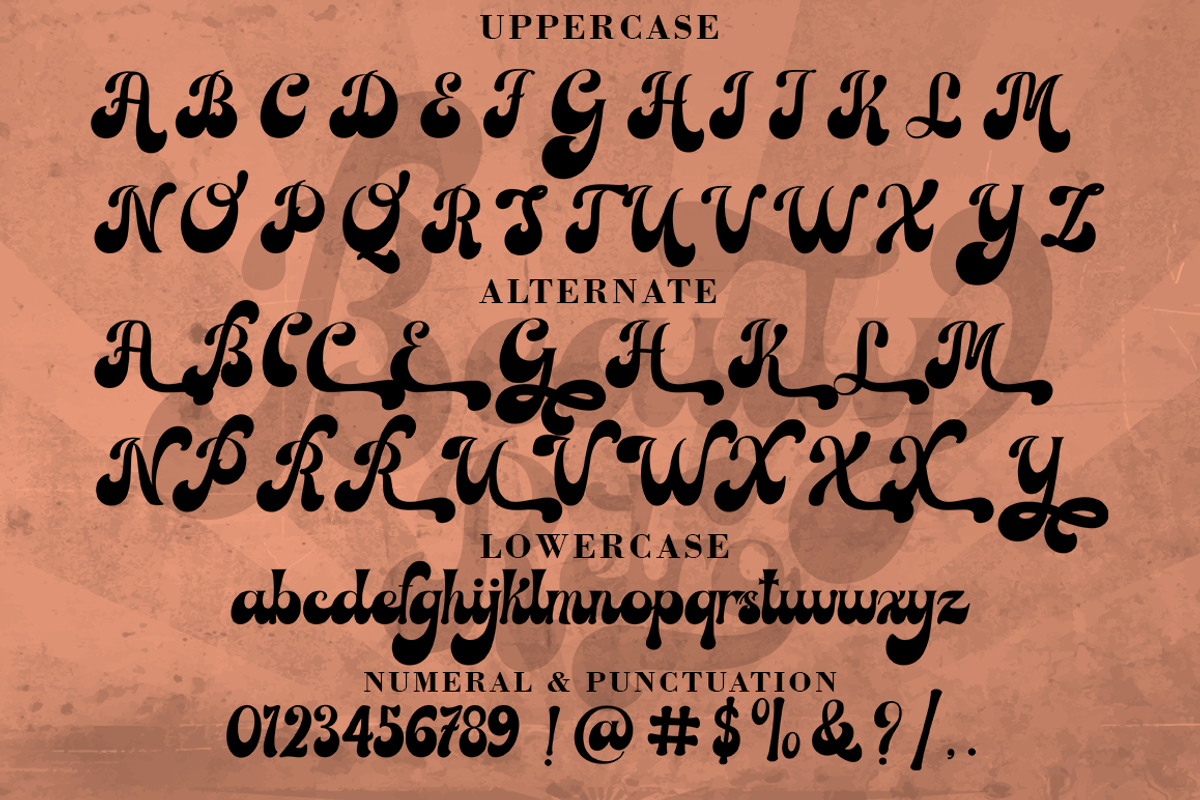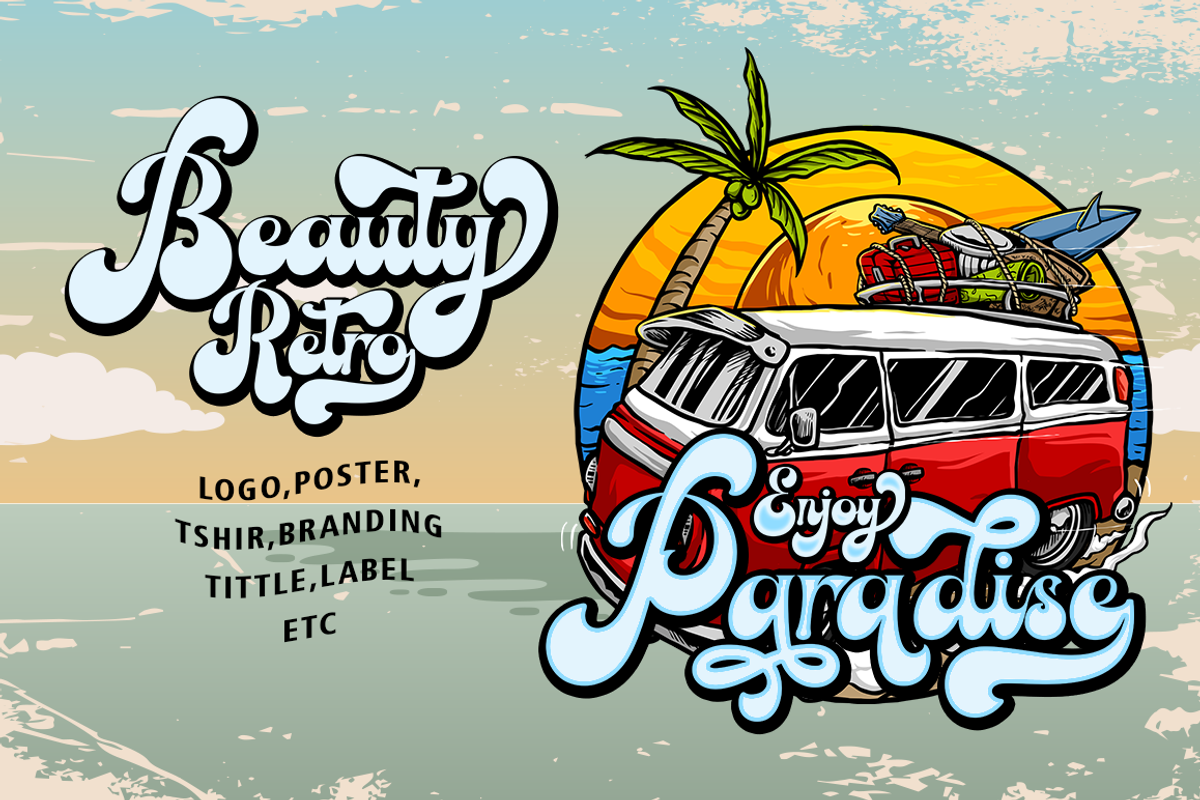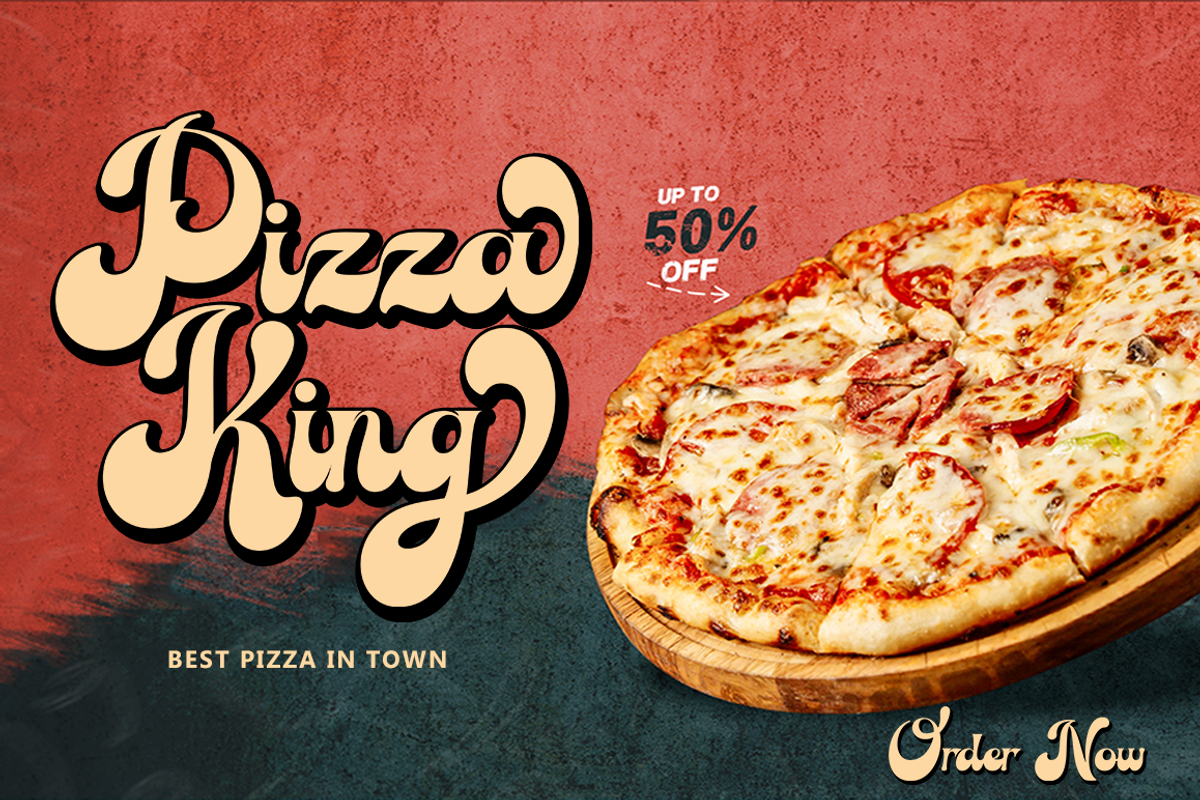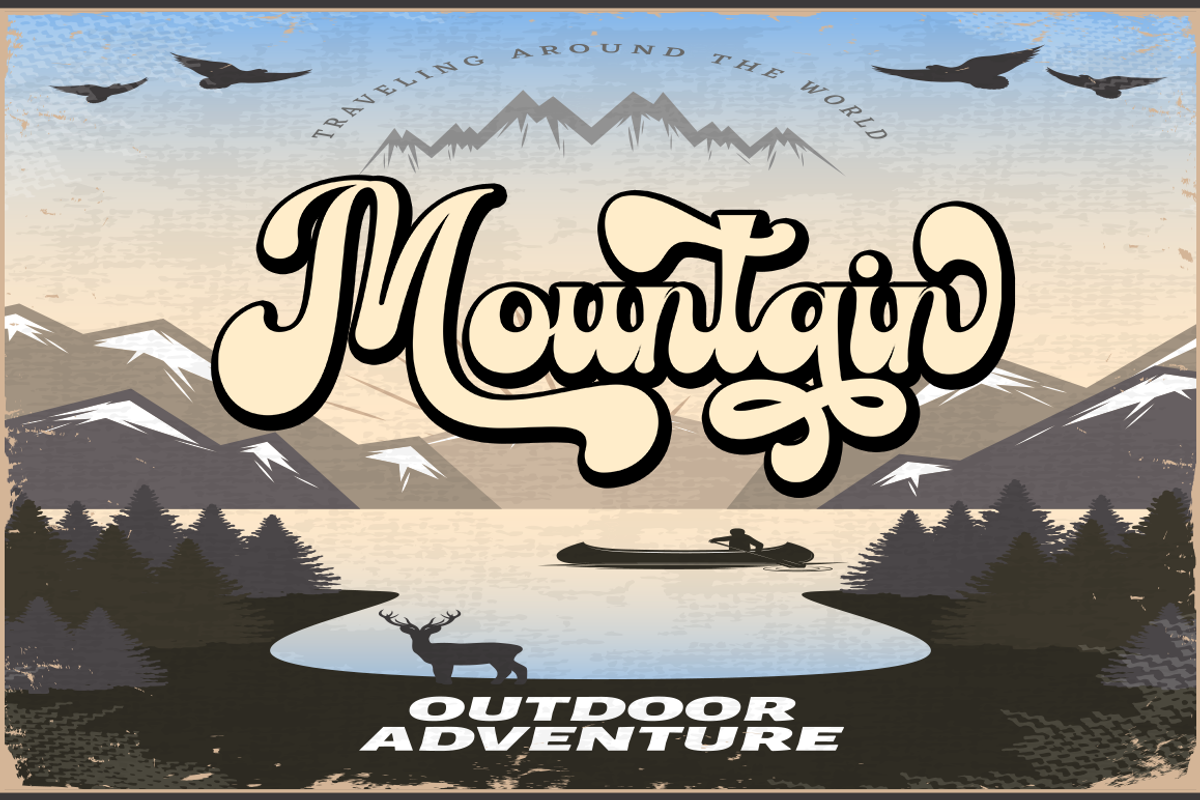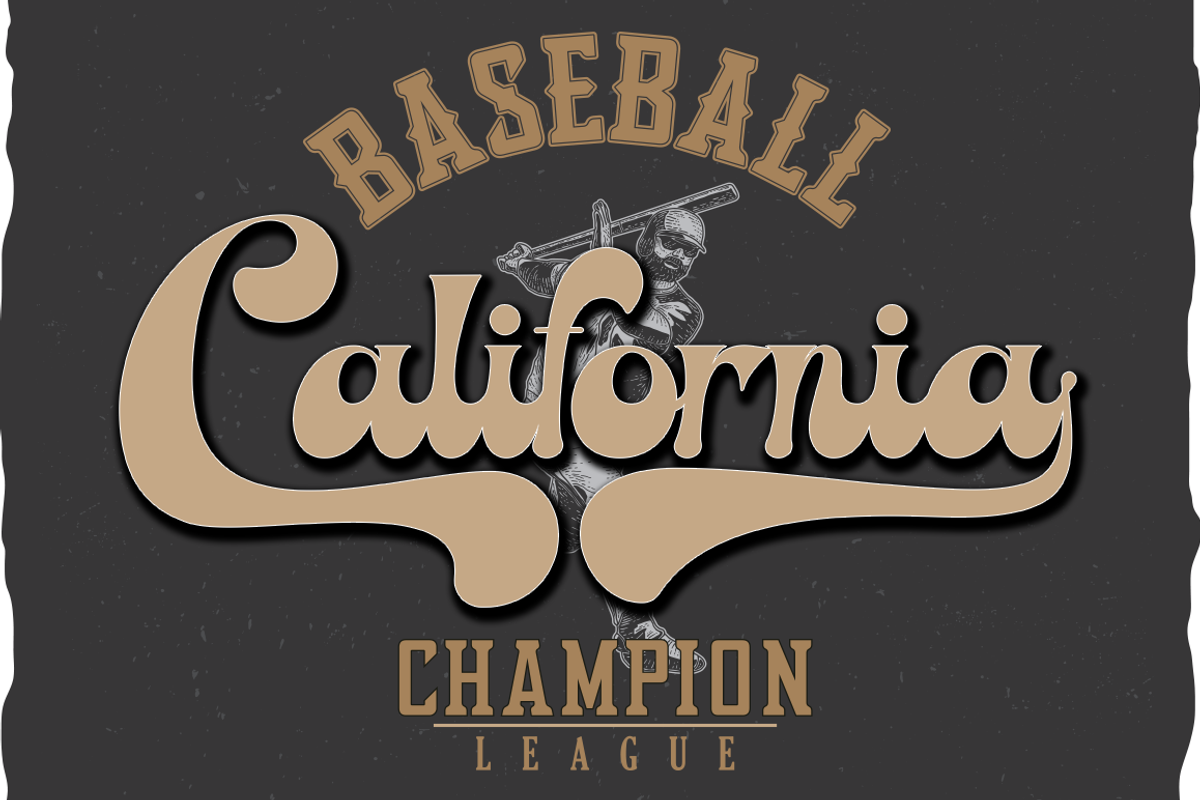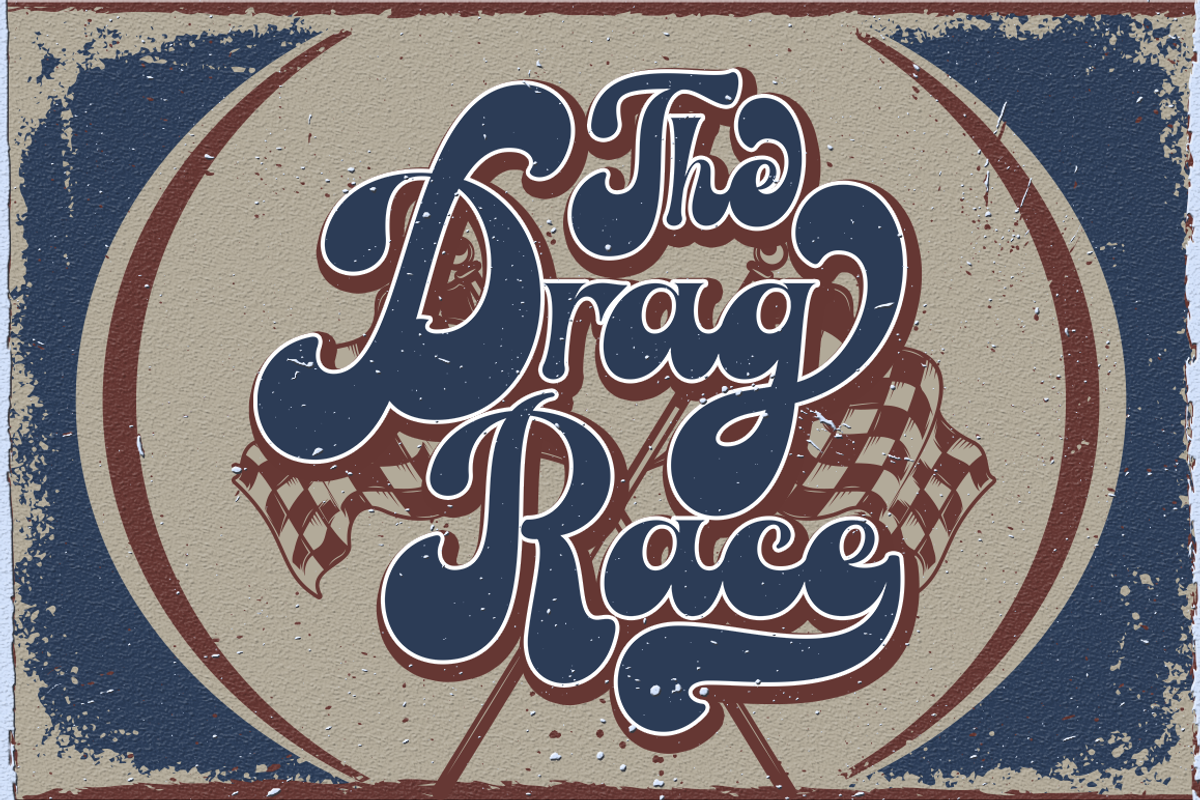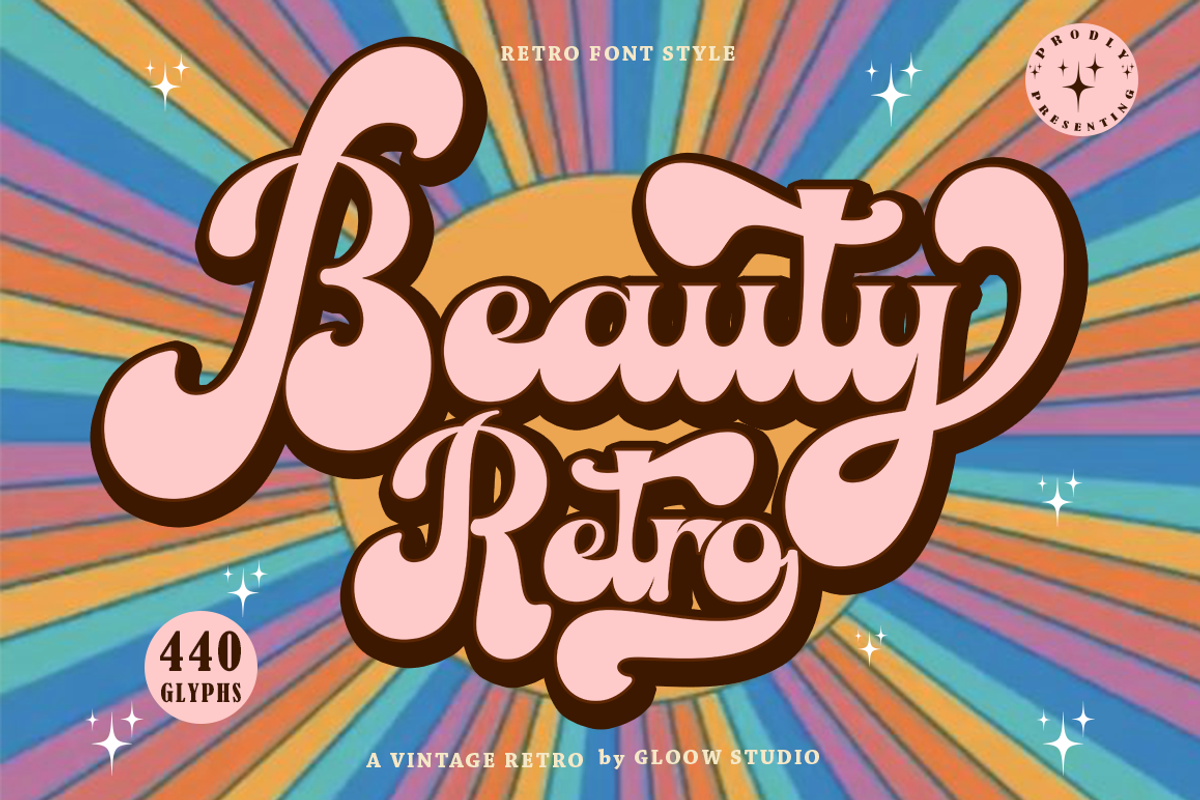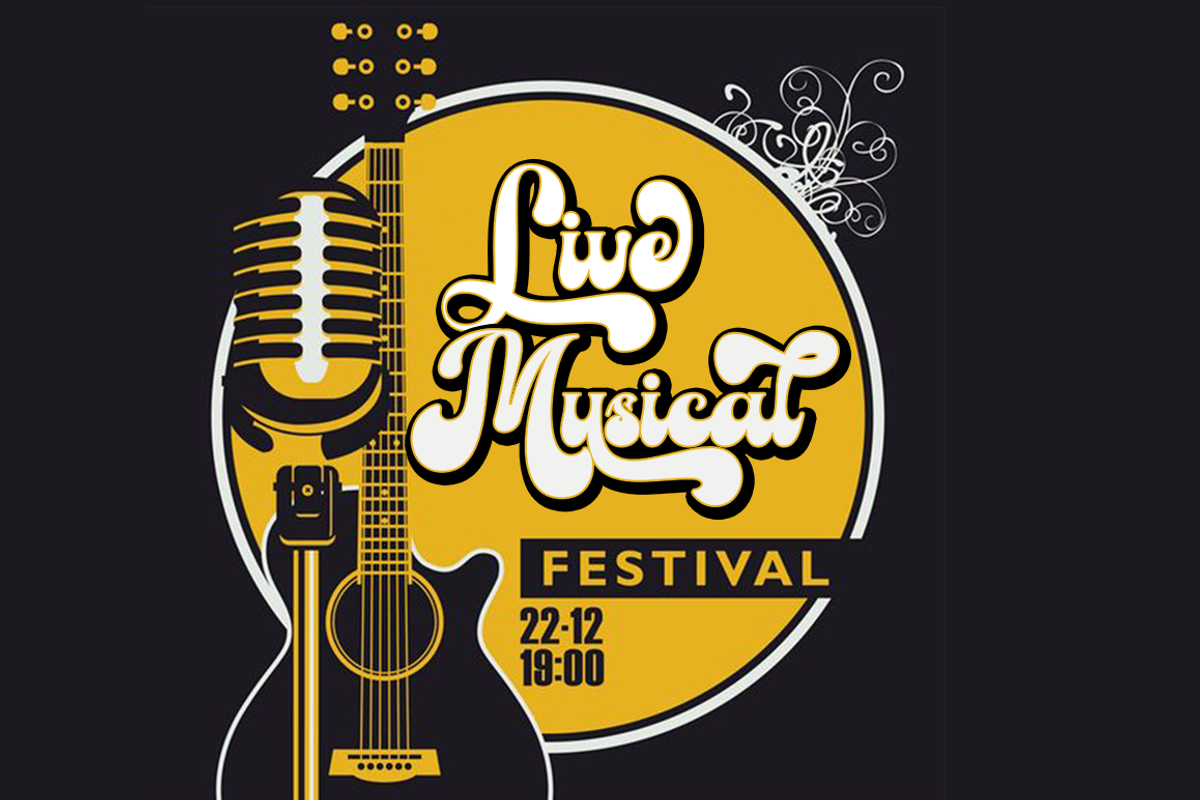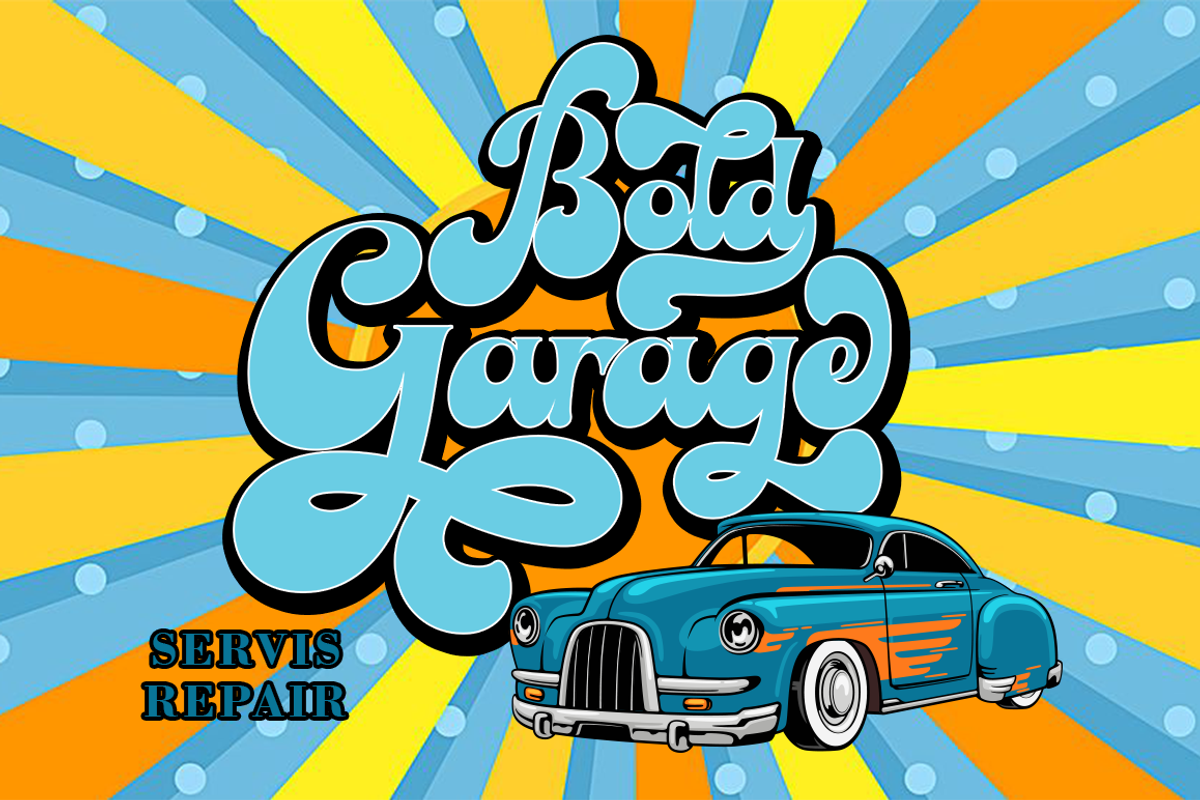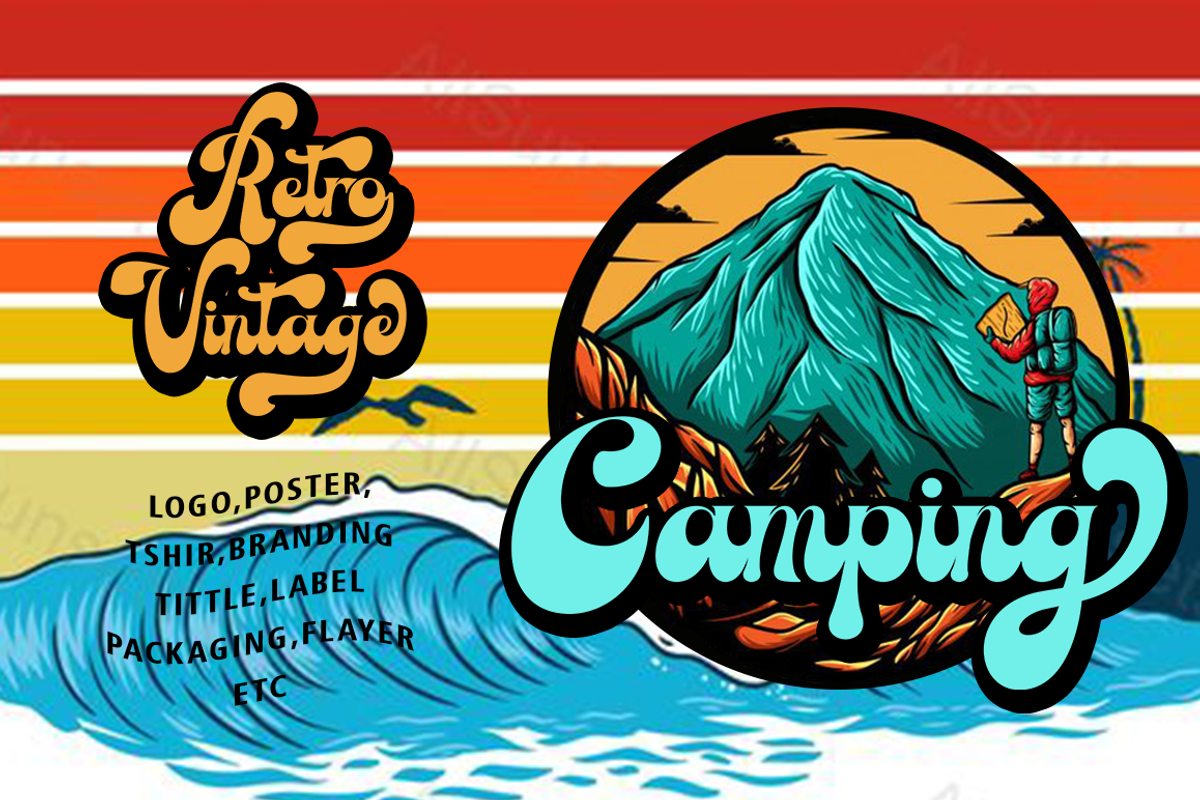
Beauty Retro
Product Description Beauty Retro Font is a Retro Script Font with a Bold style.
Lowercase
Stylistic Alternates with (Ss01, SWASH and Ligatures)